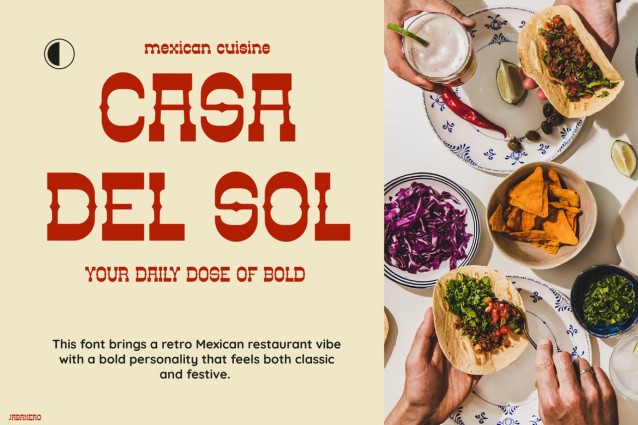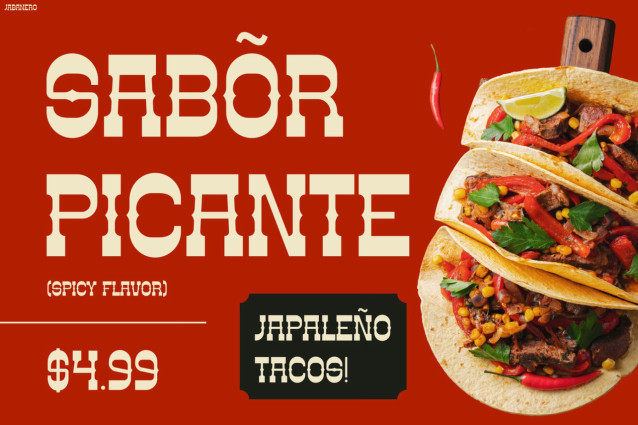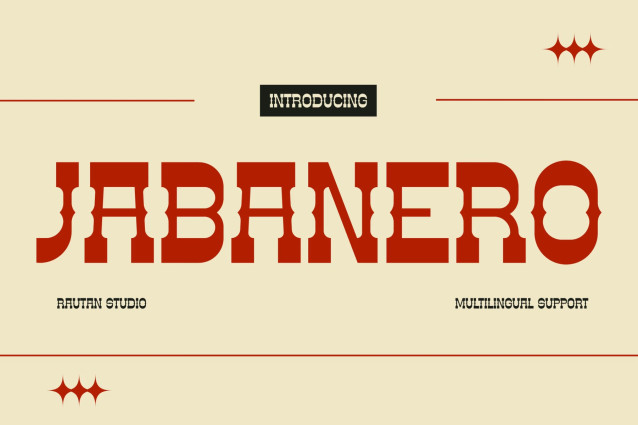
Retro Font Jabanero delivers a fierce vintage look with rugged stencil-inspired shapes and spicy retro energy. Moreover, the distressed details create a handcrafted street-market vibe inspired by classic Mexican diners and old-school signage. At the same time, the font stays clean, readable, and highly effective for modern branding.
In addition, its bold structure helps headlines stand out across menus, posters, logos, packaging, and social media graphics. As a result, every design feels louder, stronger, and more memorable. Even better, Retro Font Jabanero includes Multilingual Support for 67 languages, so your projects can connect with global audiences more easily.